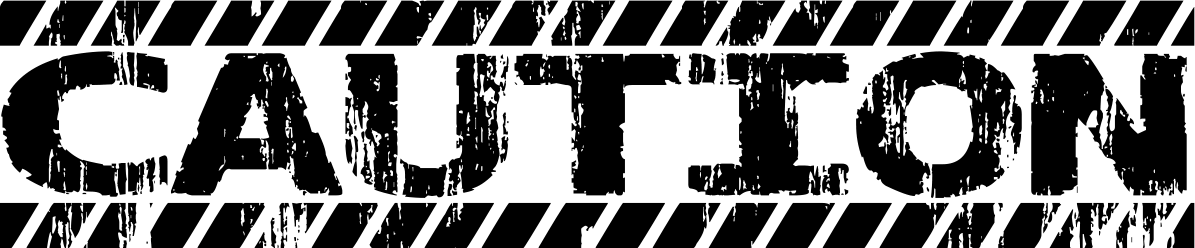
Caution Font
Caution is retro, worn, and bold. It is an eroded font that comes with the characters in striped barricade tape frames. Caution is an all-caps warning font that makes a perfect choice to be used on movie posters, flyers,…
Caution is retro, worn, and bold. It is an eroded font that comes with the characters in striped barricade tape frames. Caution is an all-caps warning font that makes a perfect choice to be used on movie posters, flyers, signs, apps, and any other occasions where you need your texts to look weathered and bold.